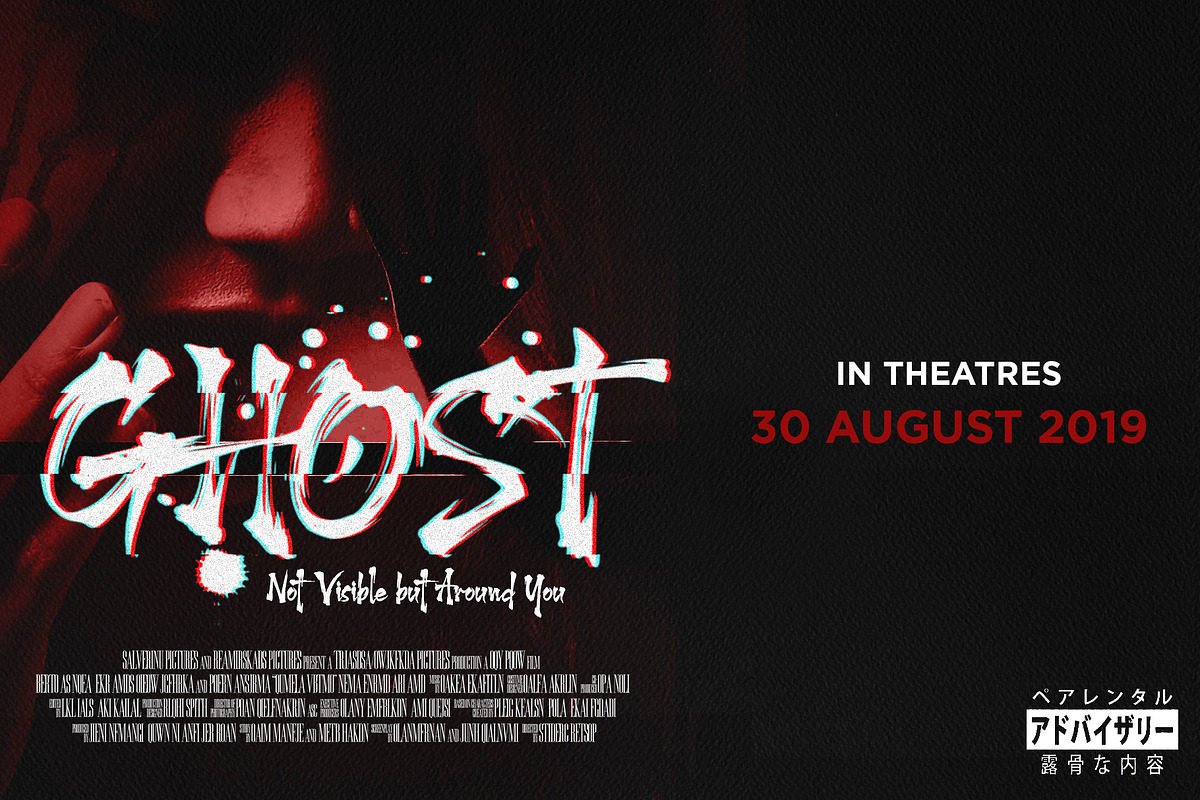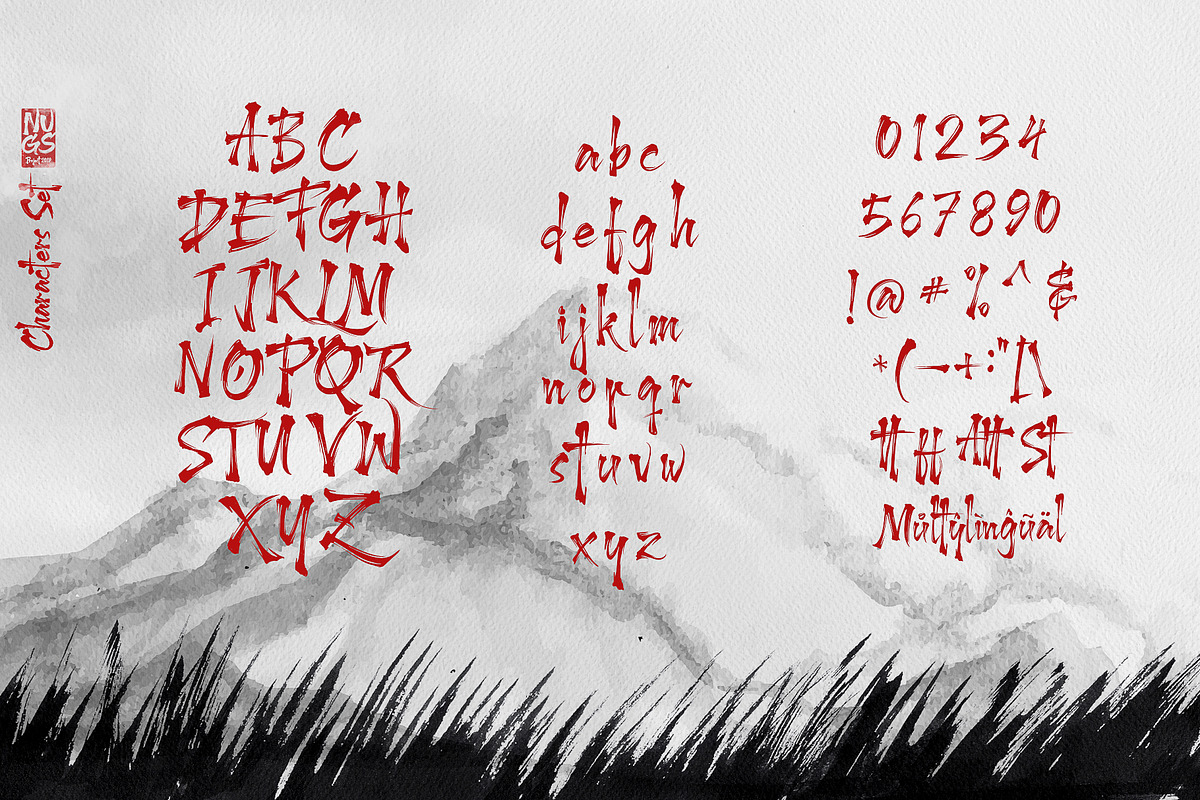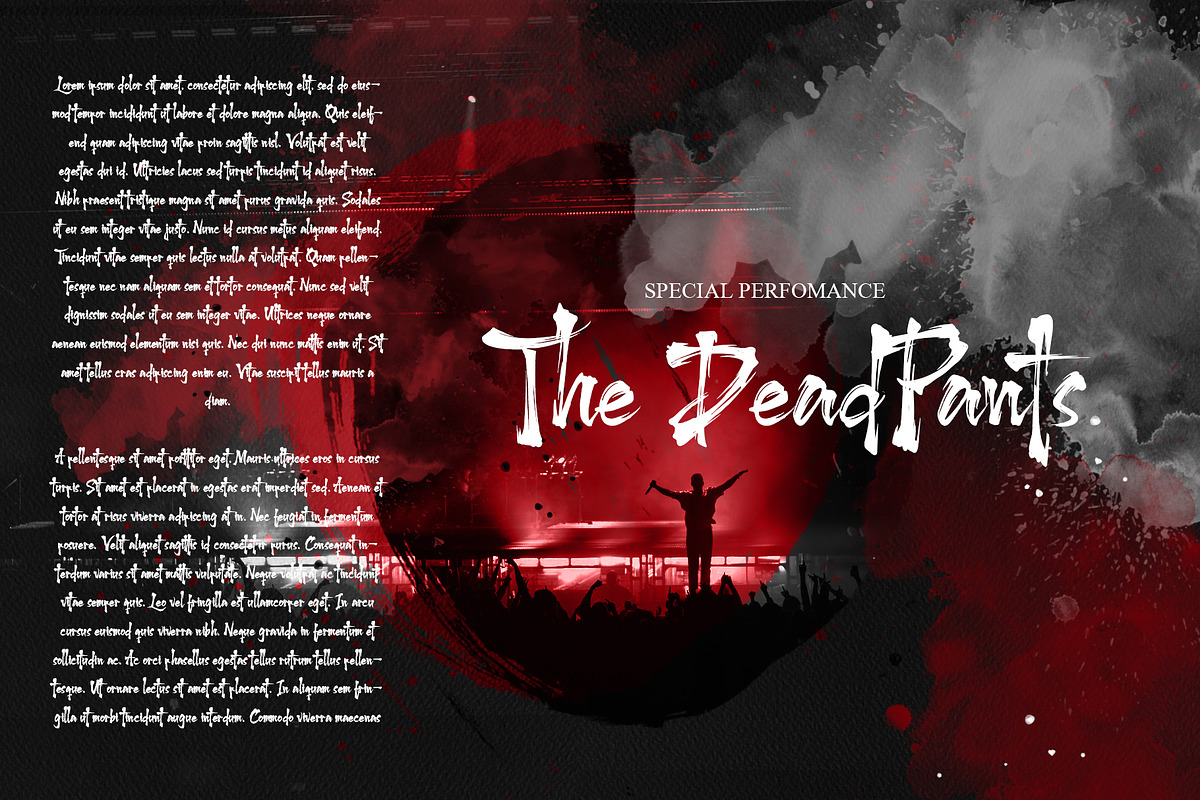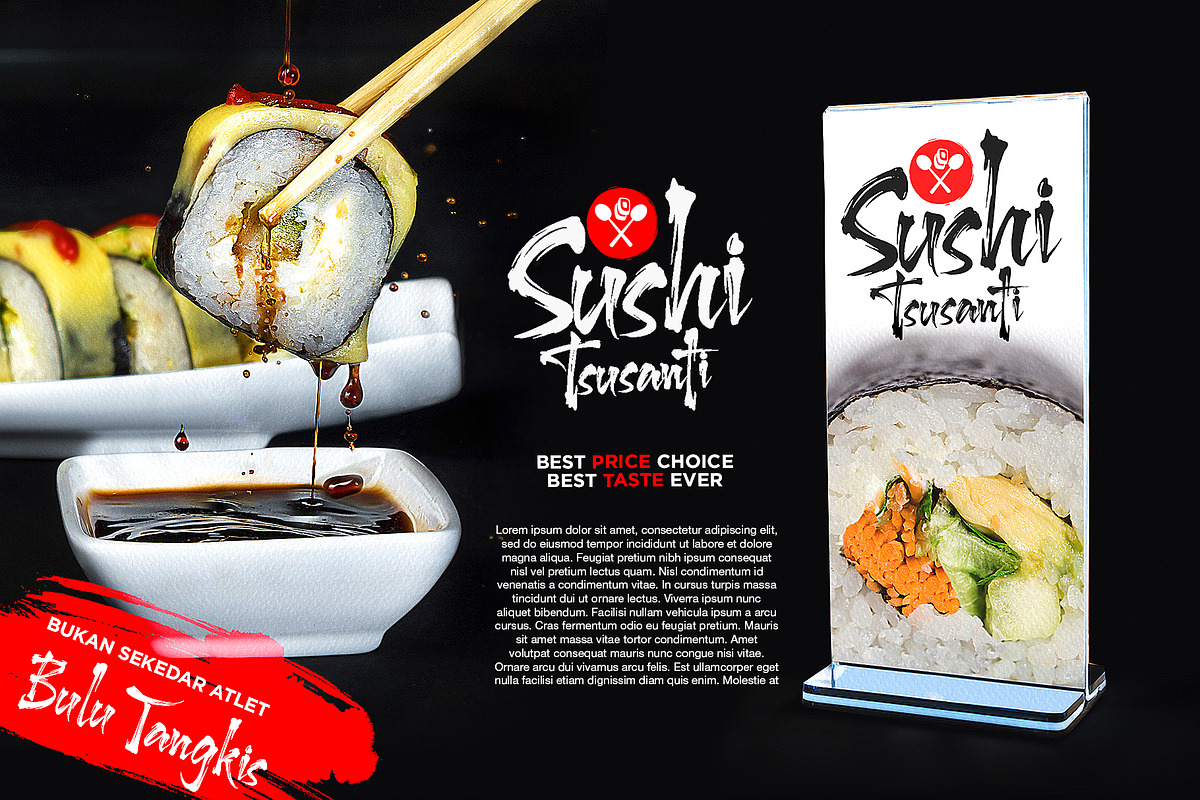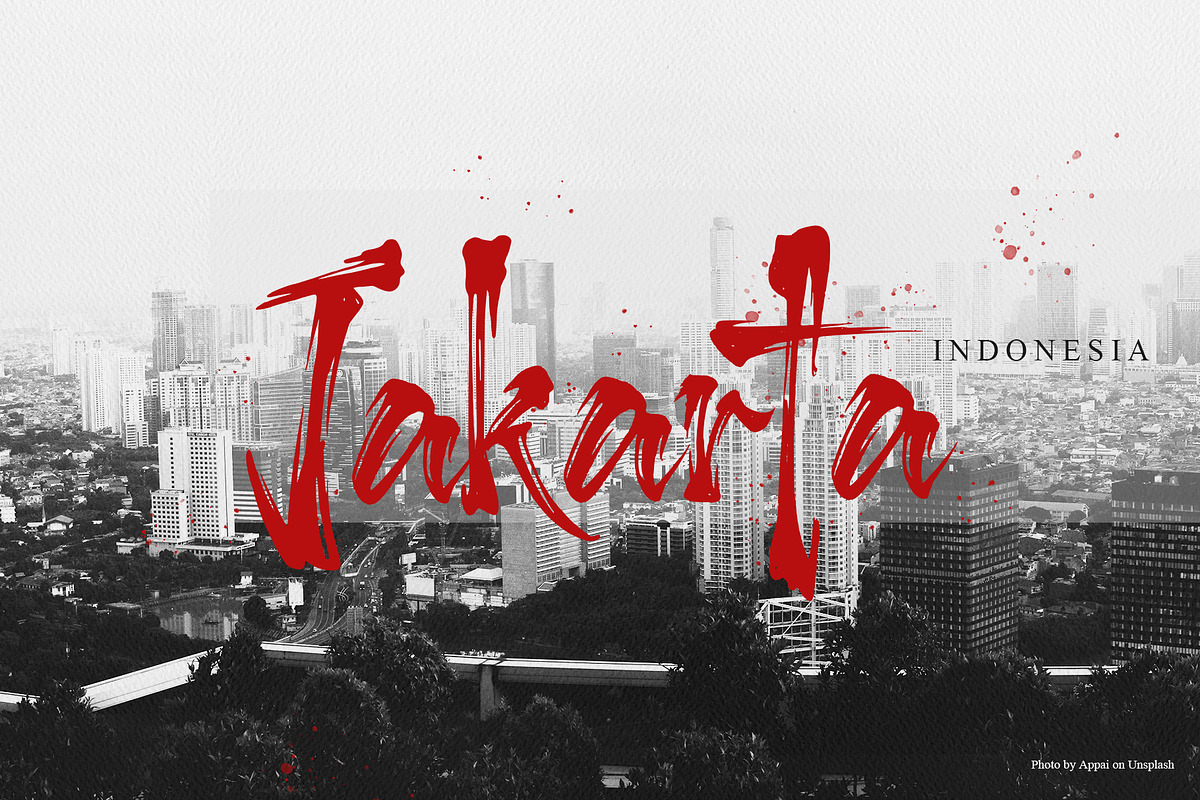
Harukaze Brush Font
Inspired by traditional Japanese calligraphy, Harukaze is a brush display typeface with a bold and powerful feel.
Harukaze Brush Font by NUGS fits naturally into Branding, posters, packaging, typography.